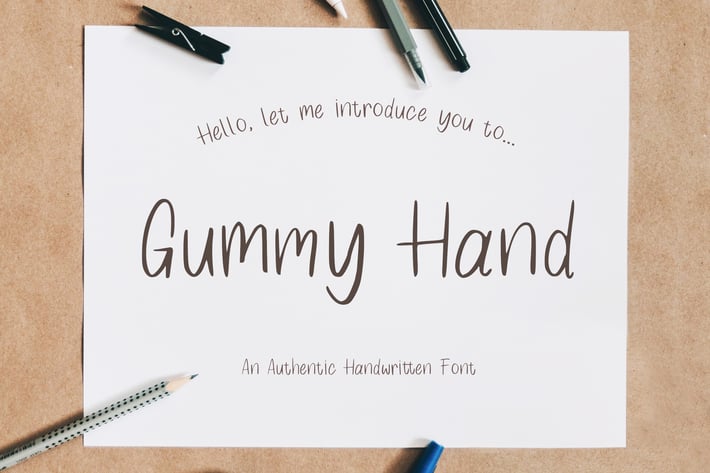
Gummy Hand - Authentic Handwritten Font
Looking for a font that looks like handwriting and natural?
Gummy Hand is a font created with authentic handwritten style. It features a natural handwritting look and will add a natural feel to your upcoming projects. Get inspired by its unique feel and use it to create designs, logo, product packaging or posters and many more!
Special Character/ Alternate Glyphs included